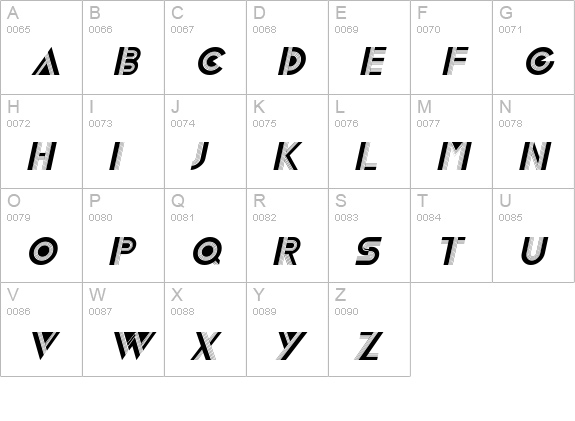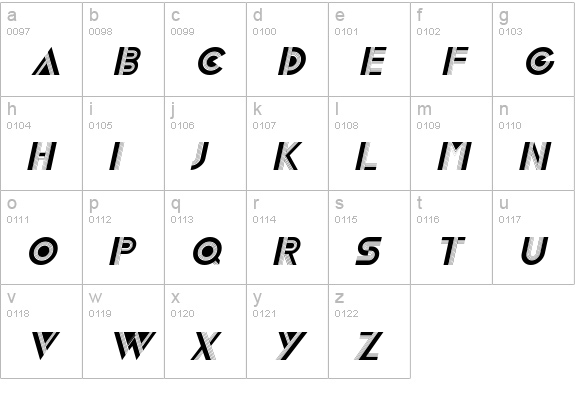
LivelyDisplayCaps Italic Font Details
LivelyDisplayCaps Italic is a distinctive, italic variant in the LivelyDisplayCaps typeface family \xE2\x80\x94 well suited to design and typography projects.
LivelyDisplayCaps Italic font is a vibrant and dynamic typeface that exudes energy and creativity. Its playful curves and bold strokes add a touch of liveliness to any design project. This font is perfect for making headlines pop or adding a stylish flair to invitations and posters. The best part? LivelyDisplayCaps Italic font is completely free to download at FontsMarket.com. Whether you're a designer looking to spice up your projects or a hobbyist wanting to add some fun to your creations, this font is a fantastic addition to your toolkit. Don't miss out on the opportunity to grab this exciting typeface for free and elevate your designs with its unique charm.